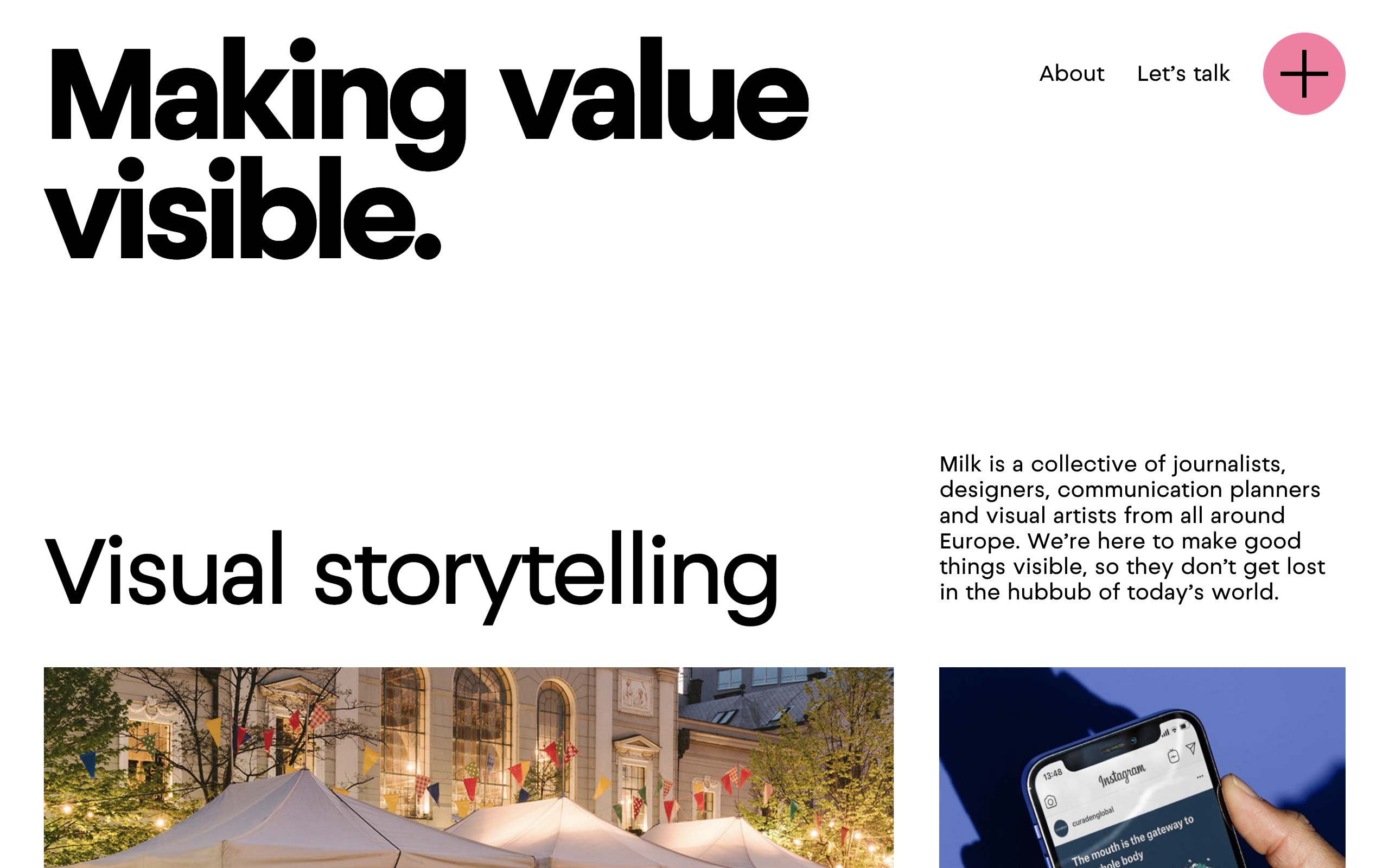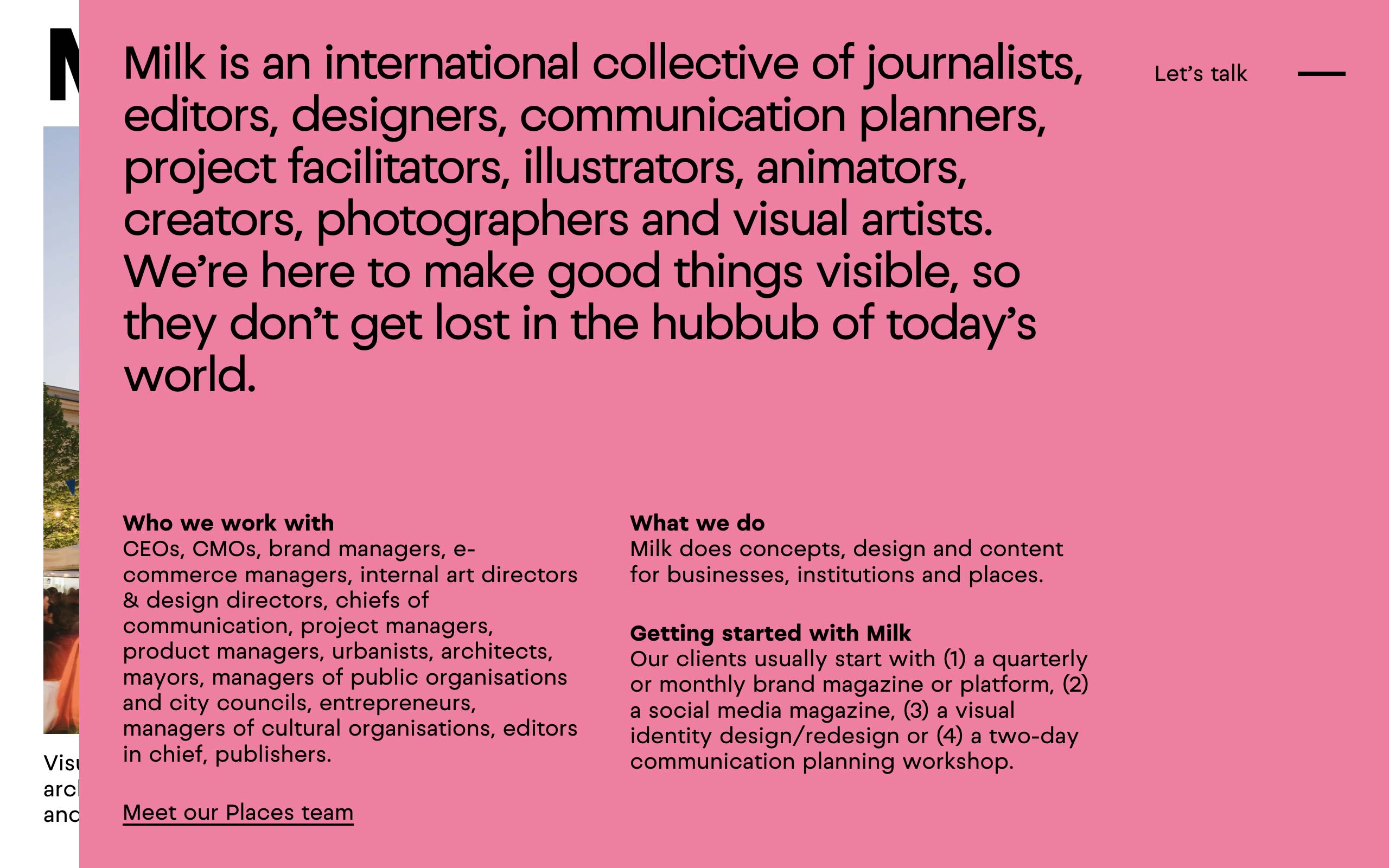
Milk
Custom display typeface for design studio Milk, SK. The assignment was to design a simple neutral geometric sans with a pinch of quirkiness. Milkface is a formal predecessor of Setup Grotesk typeface.